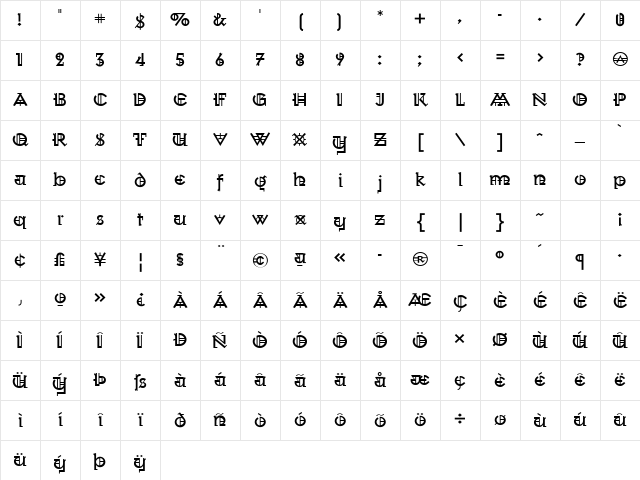
WexfordOakley Regular Free Font
WexfordOakley Regular
Foundry: Rian Hughes . A Device font
Design Context for WexfordOakley
WexfordOakley is a composed and adaptable typeface that performs quietly and consistently across a wide range of design contexts.